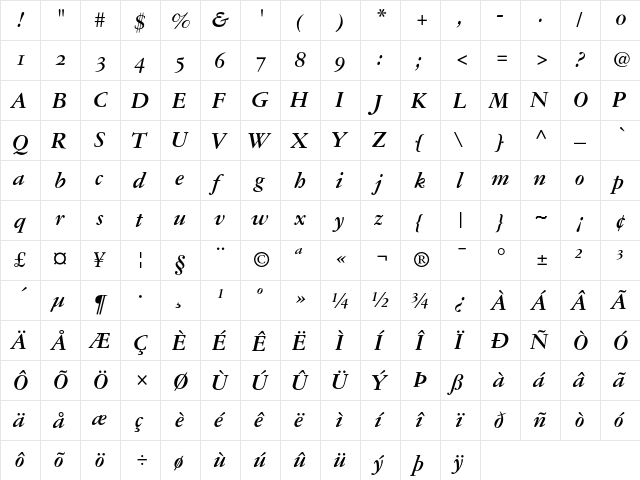
Garamond 3 Bold Italic Old Style Figures
Design Context for Garamond 3 Typeface
Garamond 3 is a composed and adaptable typeface that performs quietly and consistently across a wide range of design contexts. The dynamic lean of this cut emphasises speed and emphasis in any layout. Its bold stroke weight gives it real presence on the page.
Pro Tip: Try Garamond 3 for annotation and caption copy alongside an upright companion — the contrast in angle creates a dynamic but ordered typographic system.